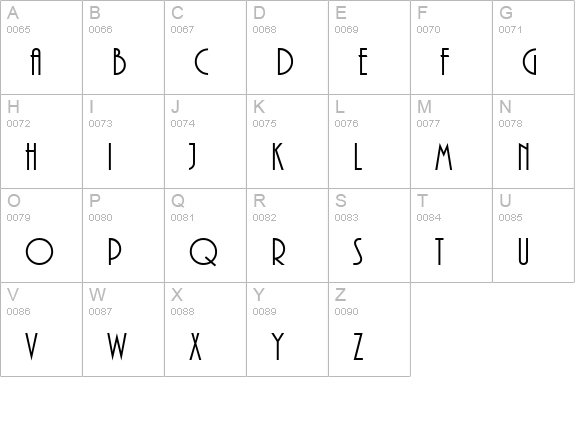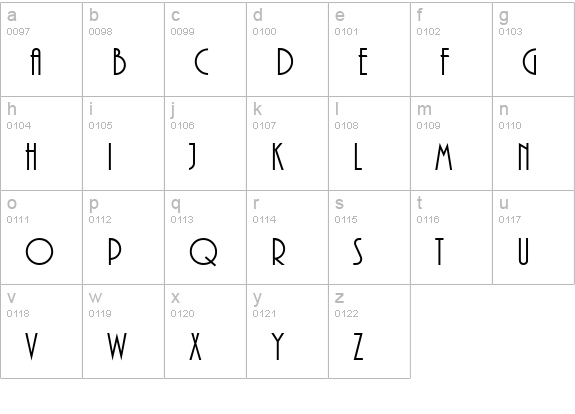
PlazaDReg font is a modern and stylish typeface that exudes elegance and sophistication. With its clean lines and sleek design, PlazaDReg is perfect for a wide range of design projects, from branding to advertising to web design. This versatile font is sure to make your text stand out and leave a lasting impression on your audience. The best part? PlazaDReg font is completely free to download at FontsMarket.com. Whether you're a designer looking to add a touch of class to your work or a business owner in need of a professional font for your marketing materials, PlazaDReg has you covered. Download it today and elevate your designs to the next level with this stunning and eye-catching font.